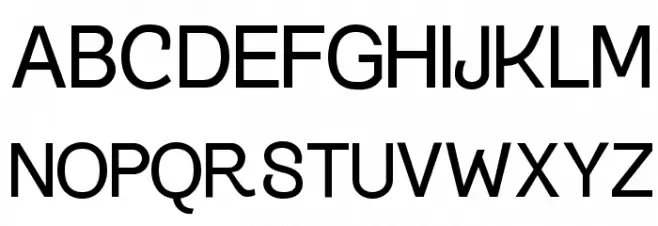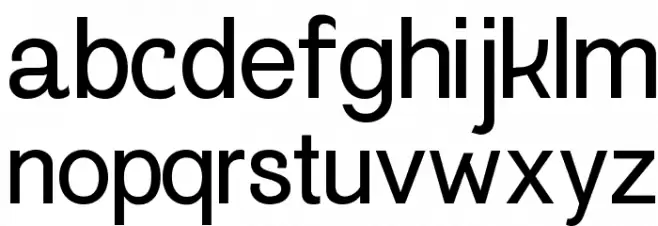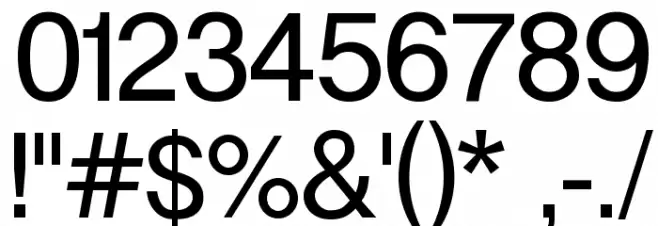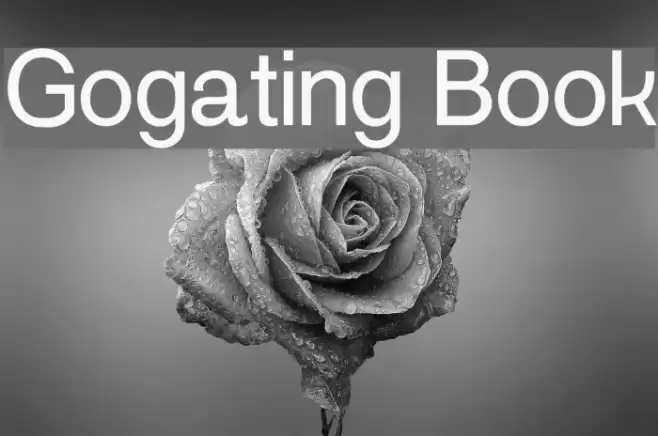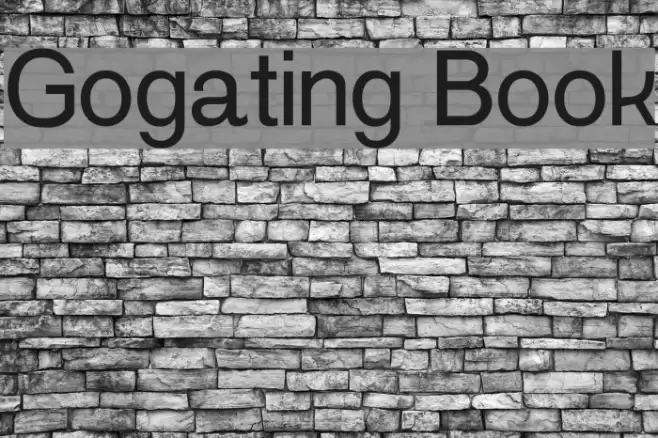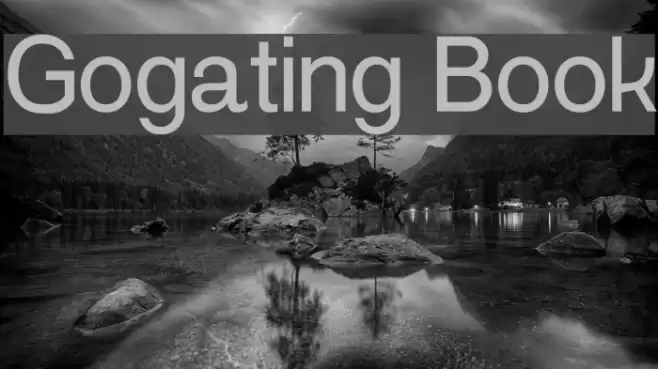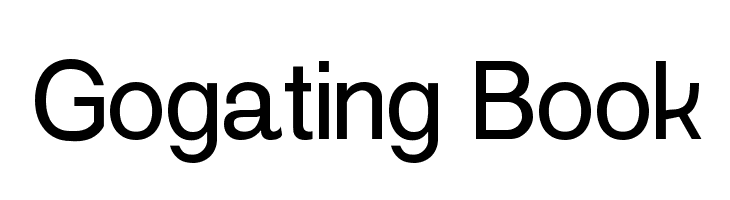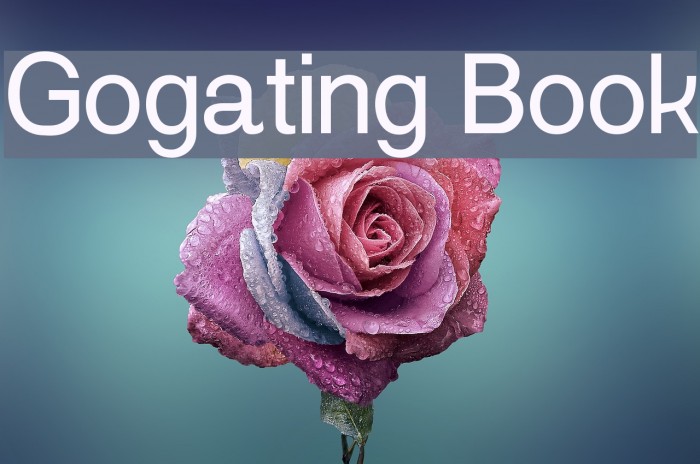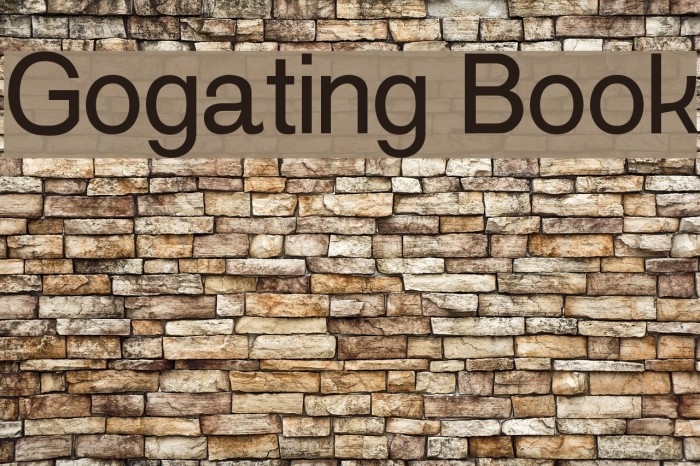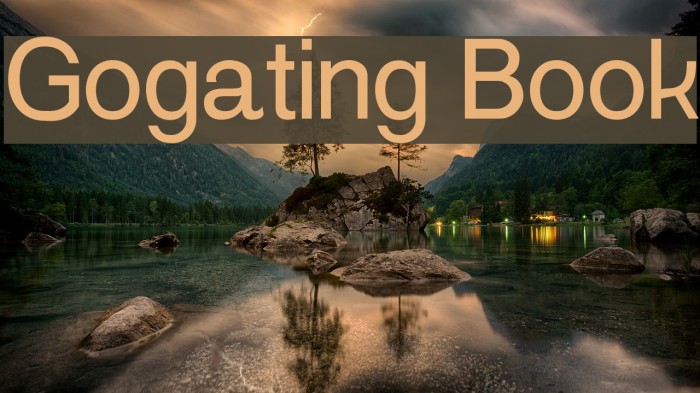
Gogating Book
This typeface exhibits a clean, modern aesthetic with a sans-serif design, characterized by its uniform stroke width and lack of decorative elements. The letters are well-proportioned, offering a harmonious balance between height and width, which enhances readability. The uppercase and lowercase letters maintain a consistent style, with rounded edges that soften the overall appearance. The numerals are clear and distinct, making them easily legible. Special characters are designed to match the simplicity and clarity of the alphabetic characters, ensuring a cohesive look across all text elements.
A modern, sans-serif typeface with clean lines and uniform stroke width.
- Proposed Projects: Ideal for digital interfaces, corporate branding, and editorial design due to its clarity and modern appeal.